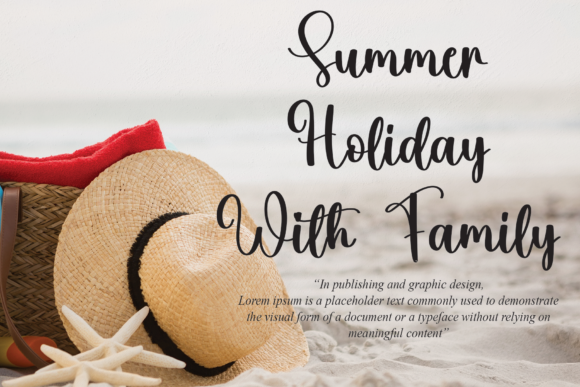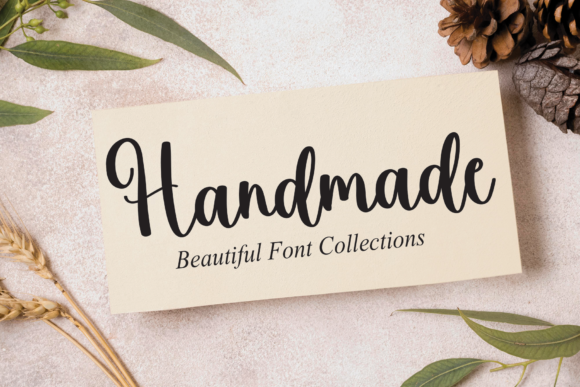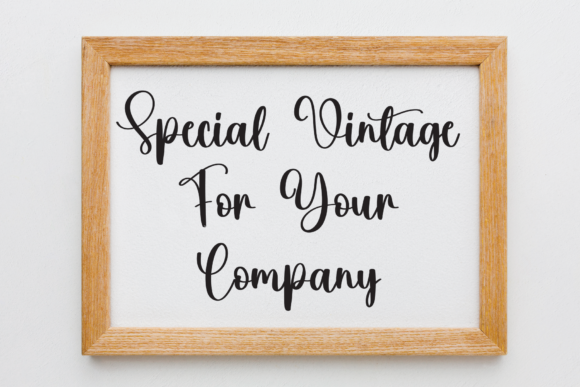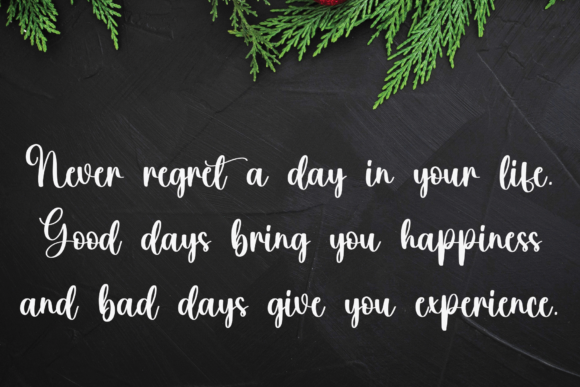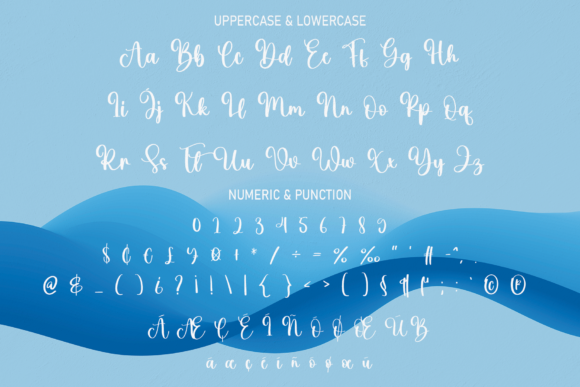
The Power of Branding Font: Elevate Your Designs with Elegance
I’ll never forget the time I was working on a project for a luxury brand, and I was struggling to find the perfect font to capture their sophisticated vibe. That’s when I stumbled upon Branding Font, a distinct graceful script font that instantly caught my attention. Its ravishing style swept me off my feet, and I knew I had found the perfect fit. In this article, I’ll share my love for Branding Font, its features, and how to make the most of it in your designs.
An Honest Review of Branding Font
- ✨ Elegant and sophisticated design that’s perfect for luxury brands
- 💫 Highly versatile and adaptable to various design projects
- 🎨 Beautifully crafted to add a touch of elegance to any design
While Branding Font is an amazing font, there are a few things to keep in mind:
- ⚠️ Some users may find the font a bit challenging to read in small sizes
- 🤔 Limited availability of certain characters, but this can be overcome with the PUA encoding
The Backstory of Branding Font
Branding Font was designed with the goal of creating a elegant and sophisticated script font that would meet the needs of luxury brands and designers. The font’s creator drew inspiration from classic calligraphy and modern typography to craft a unique and versatile font that’s perfect for a wide range of design projects.
Q: What is PUA encoding, and how does it benefit designers?
PUA (Private Use Area) encoding is a standard for encoding characters that are not part of the Unicode standard. This allows designers to access a wide range of glyphs and swashes, making it easier to create unique and customized designs.
Q: Is Branding Font suitable for body text?
While Branding Font is an elegant and sophisticated font, it may not be the best choice for body text. The font is better suited for headings, titles, and other display text where you want to make a statement.